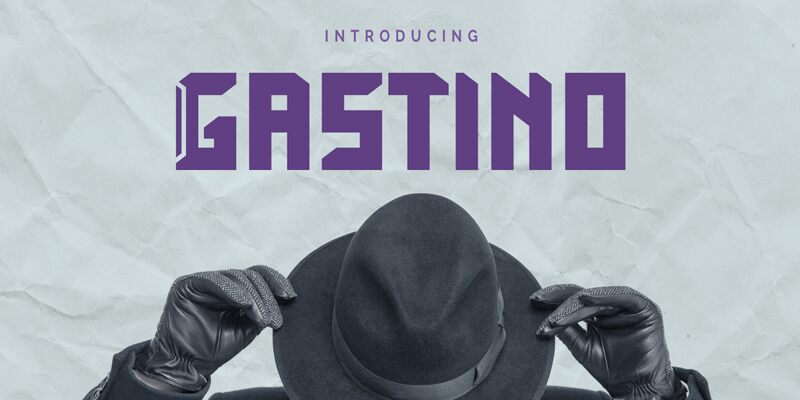
Gastino, the brainchild of Ronin Design, is a bold and condensed display font that embodies the cutting-edge world of technology. Its sleek and futuristic style makes it perfect for projects that demand an avant-garde touch.
Use Gastino to make your tech-related website or app stand out from the crowd. With its sharp lines and commanding presence, this techno-inspired typeface will leave a lasting impression on your audience. Whether it's for branding, headlines, or posters, Gastino is the go-to choice for those seeking a bold and modern aesthetic.